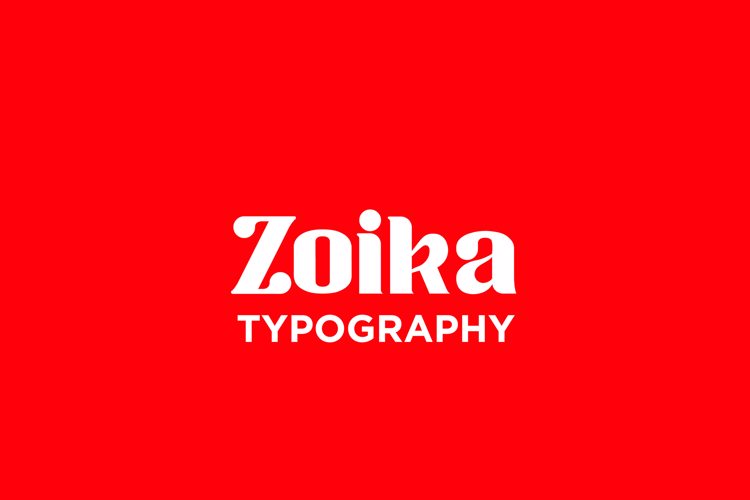
Zoika Font
Zoika Display Font is a classy and luxury bold font with a unique personality. It includes uppercase, lowercase, number, symbols and support multilingual. Zoika looks great for logos, labels, magazine or book cover, website header, flyer, clothing, photography, branding, prints, headline, typography poster, product packaging, or event your wedding invitation.